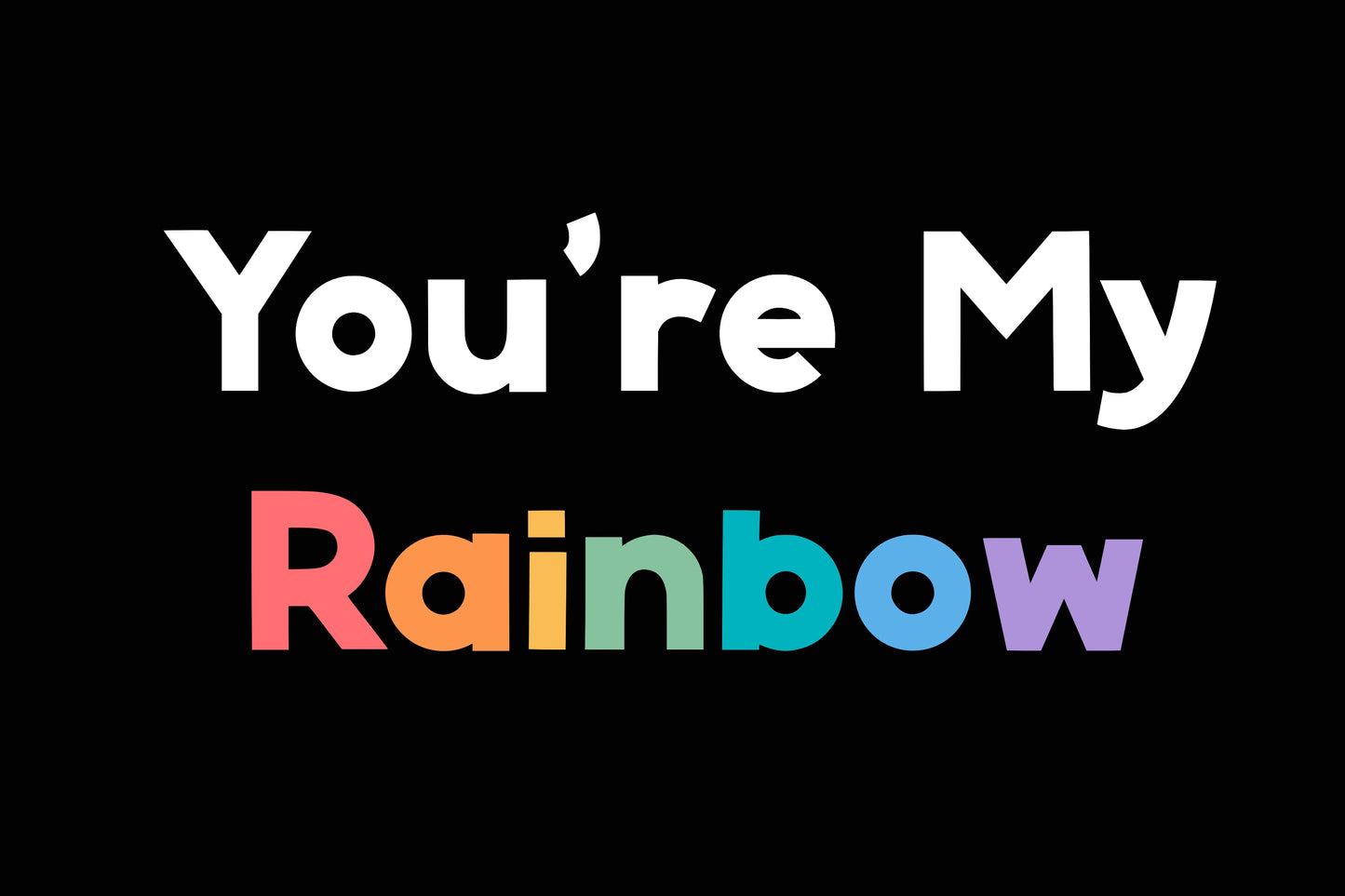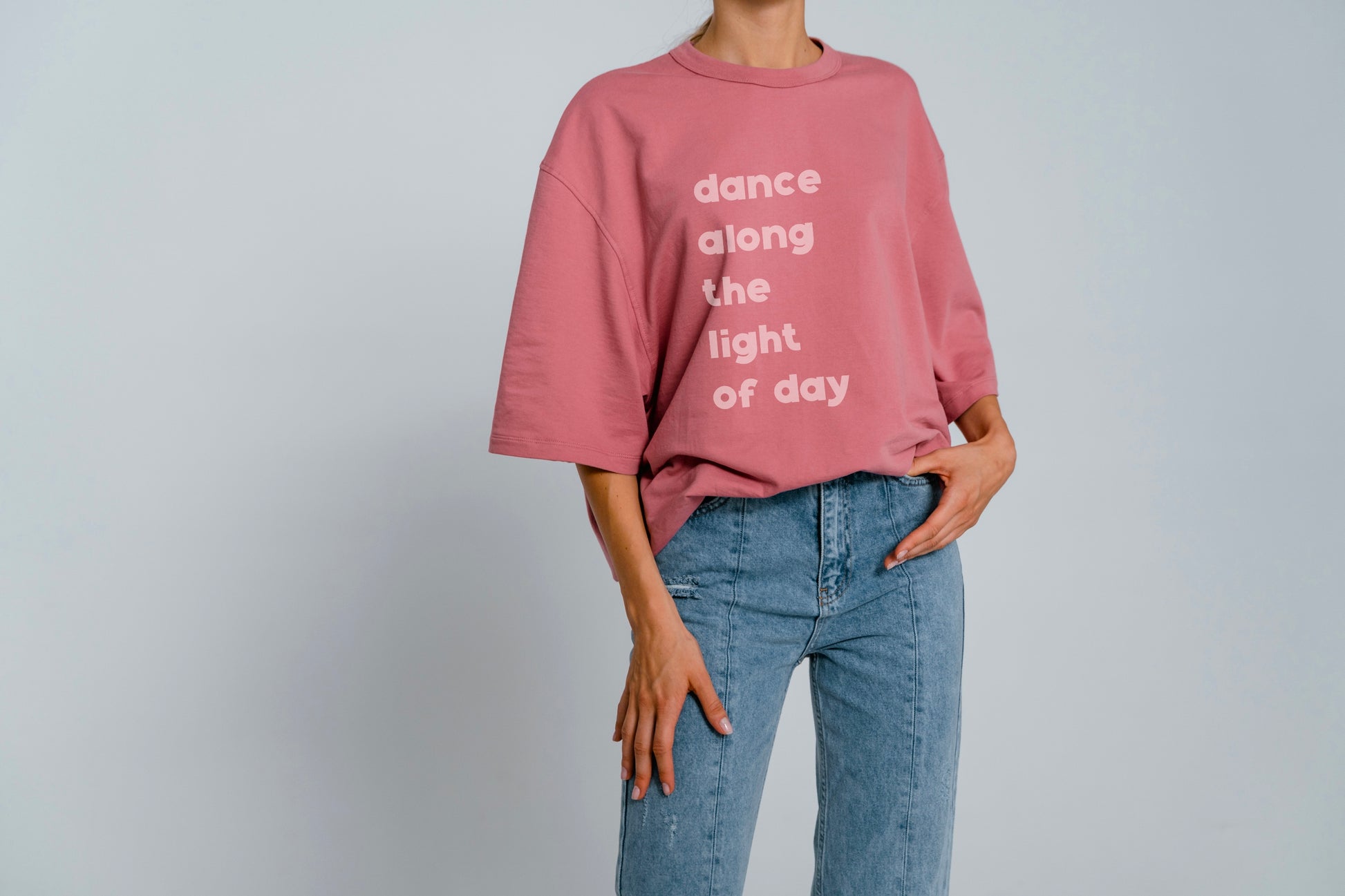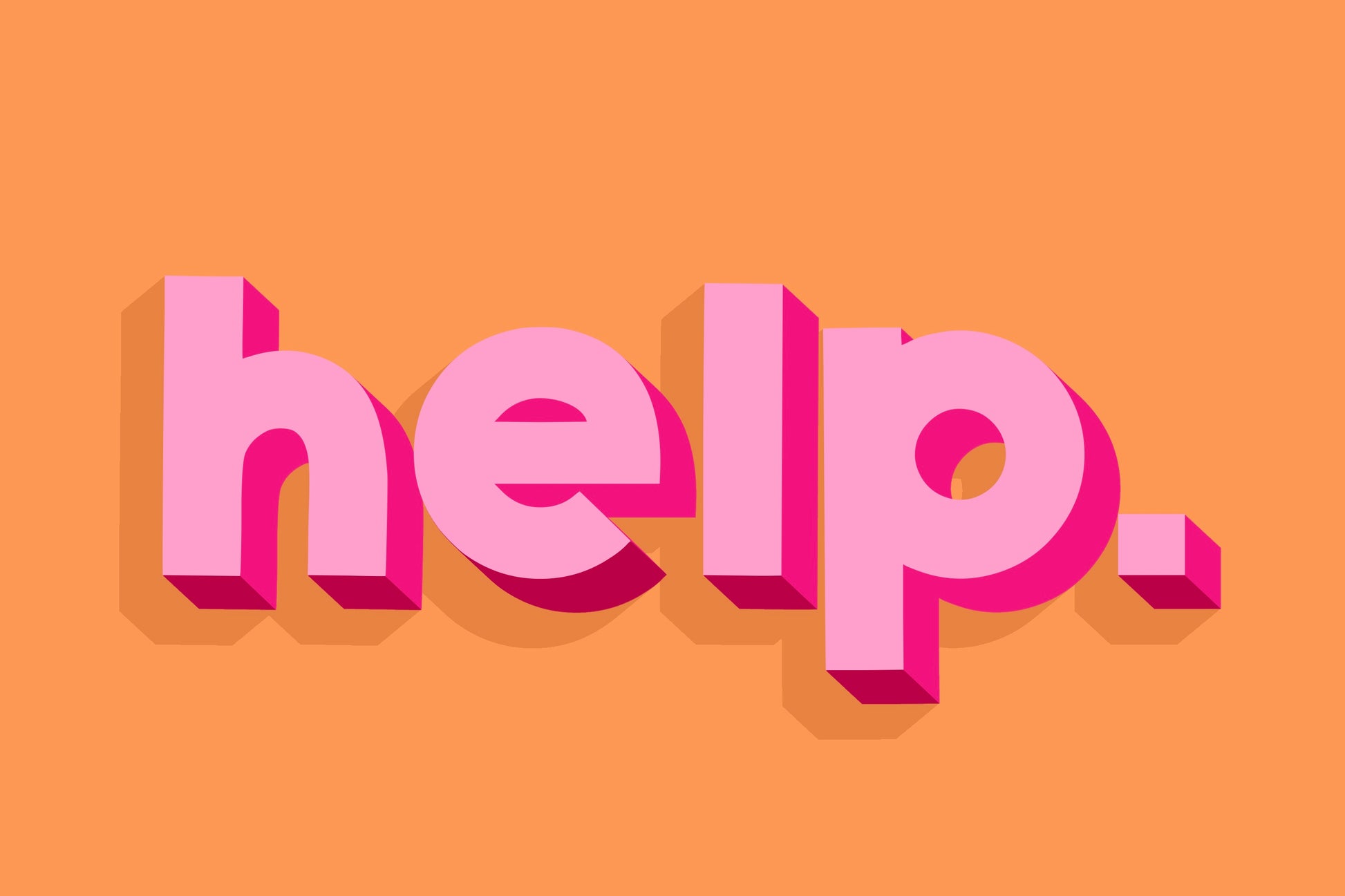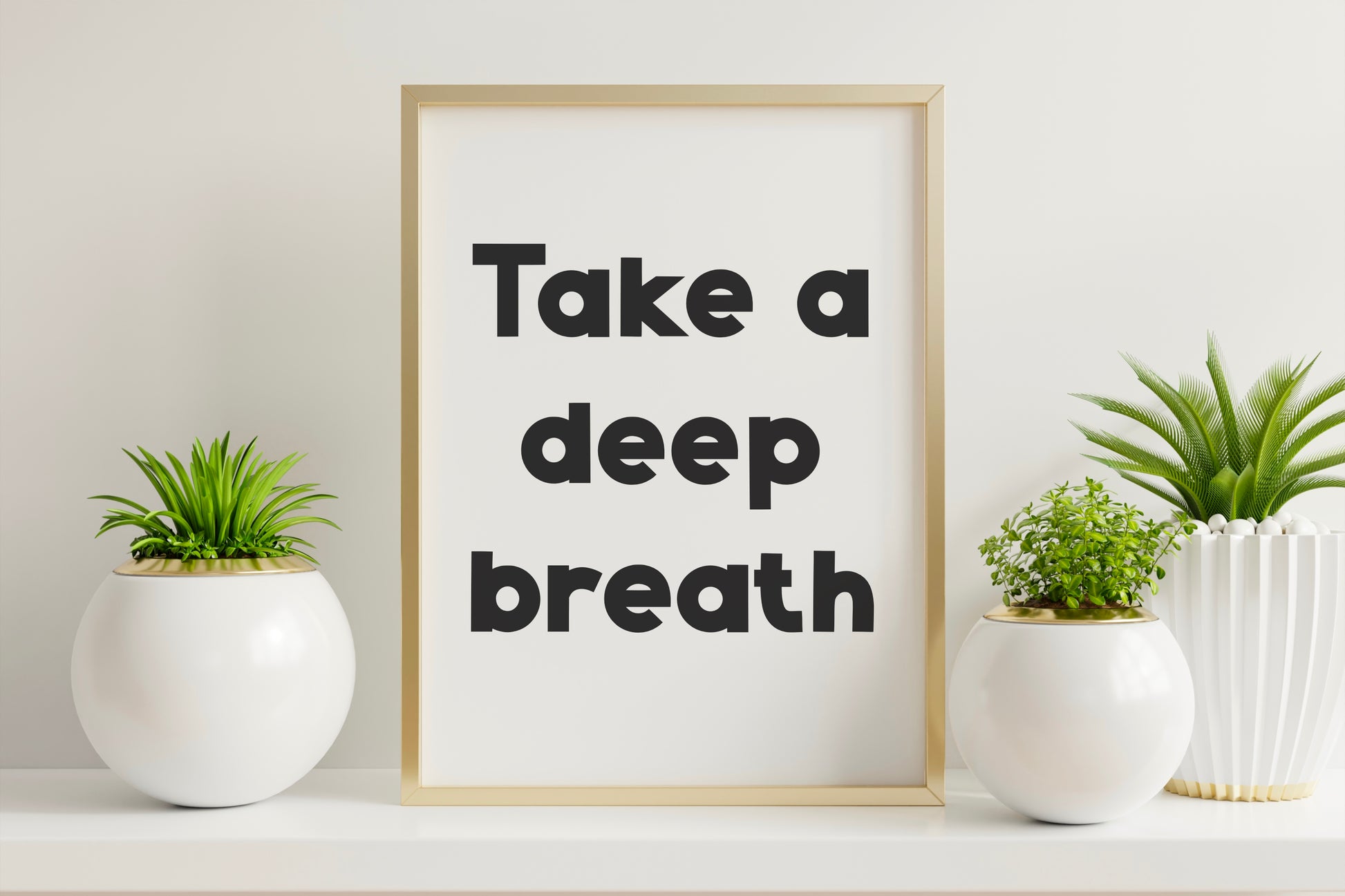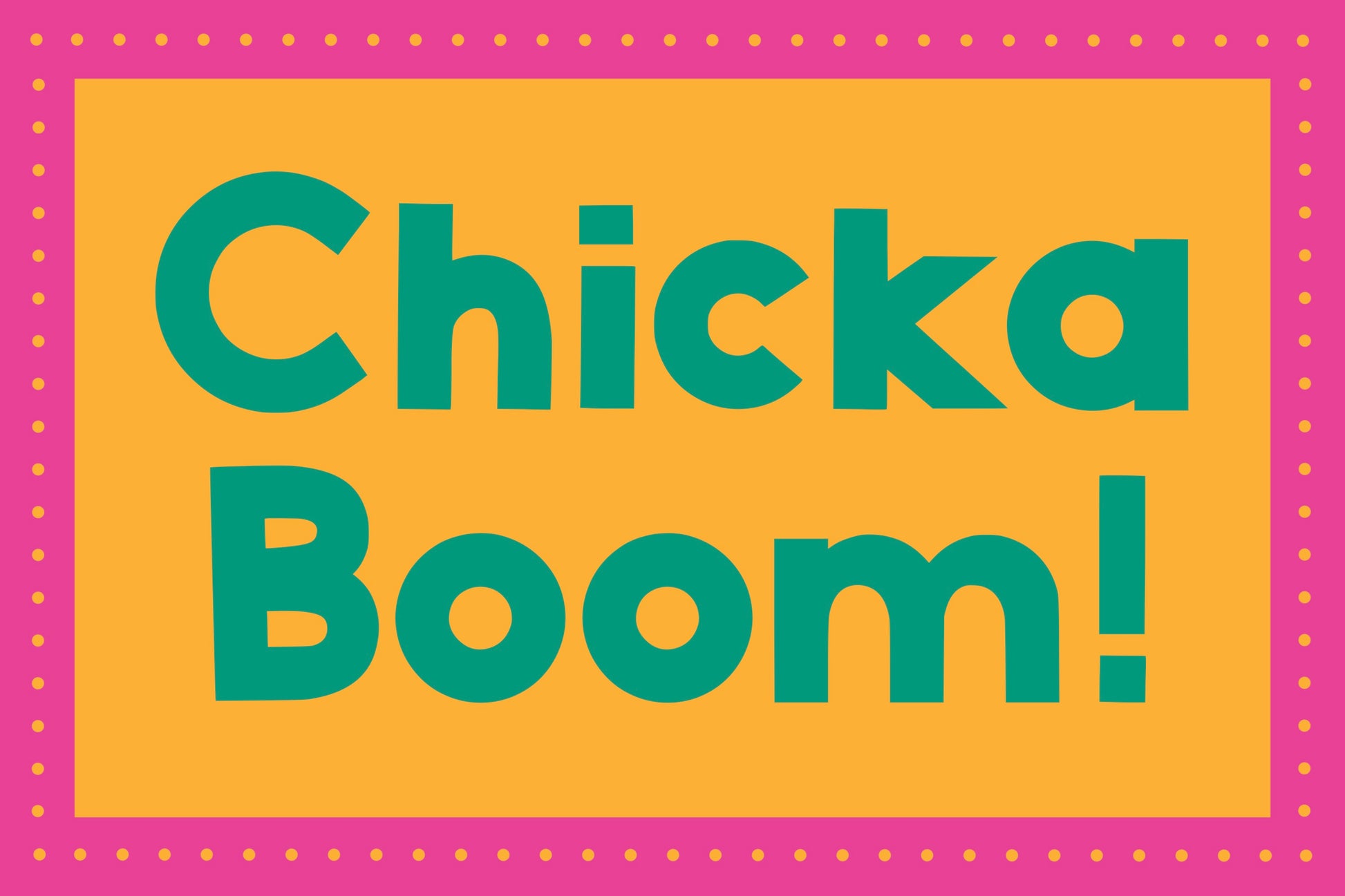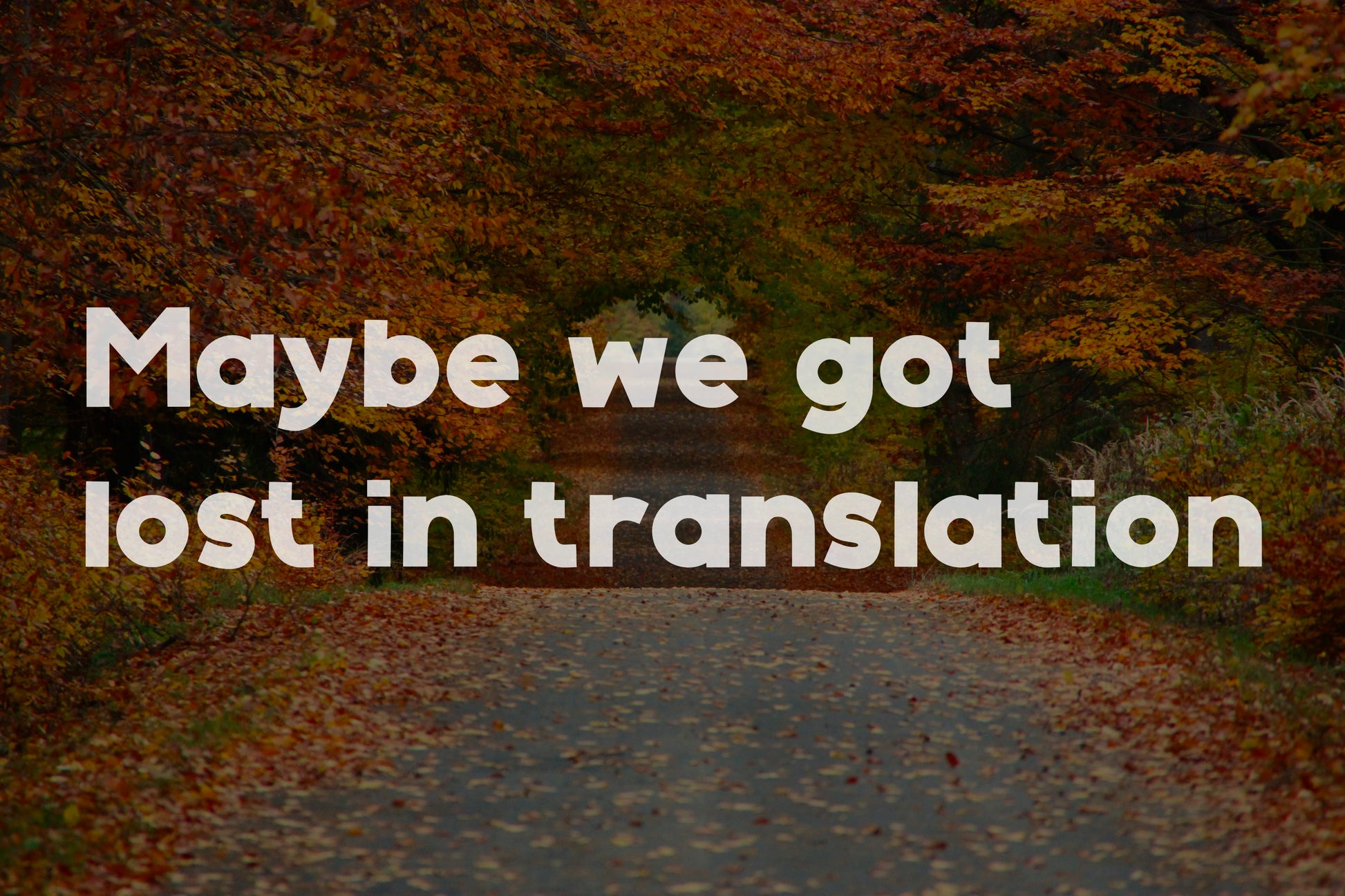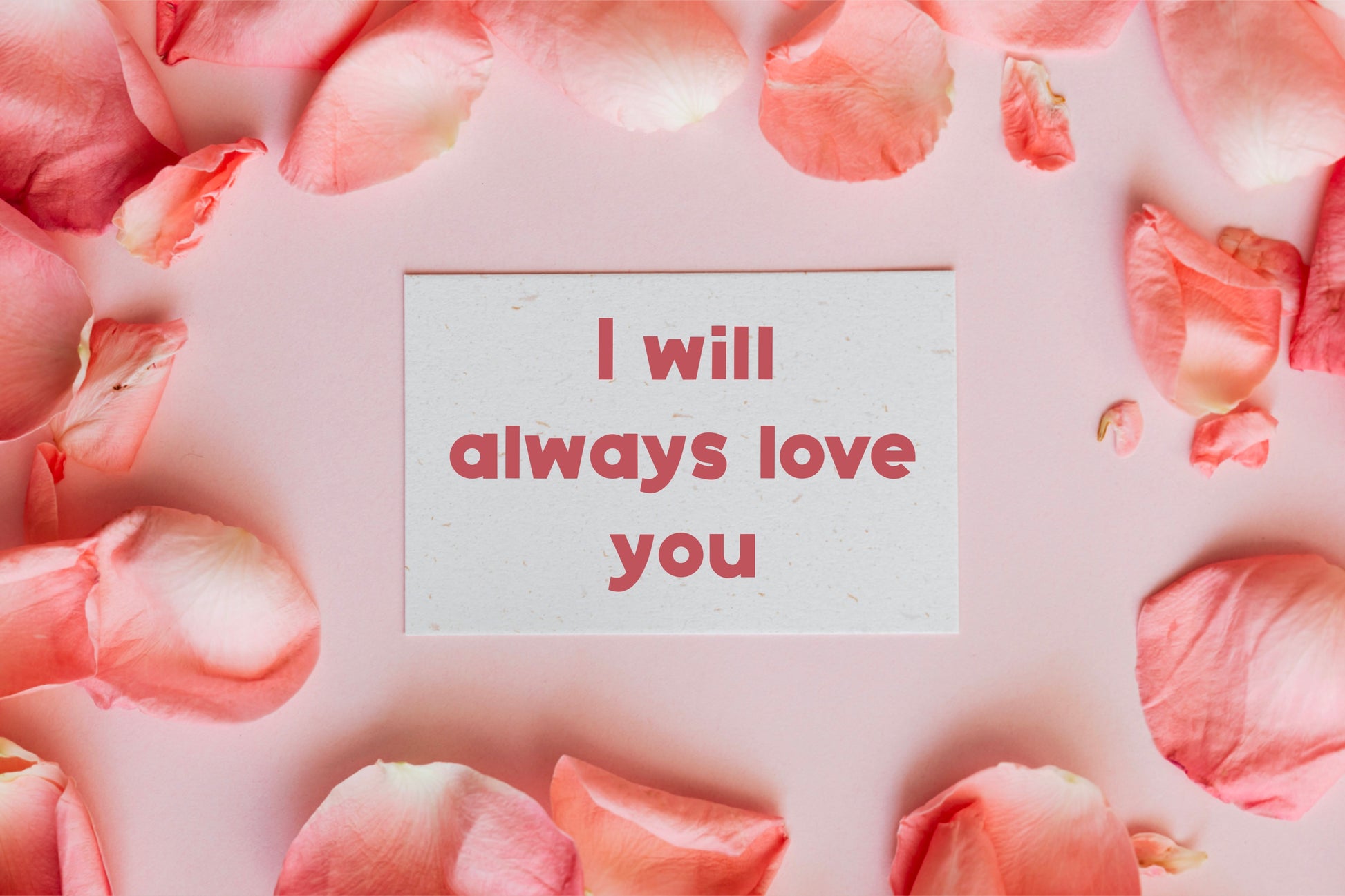
Jupiter Rain Handwritten Font
Introducing the Jupiter Rain handwritten/hand drawn font. This bold slightly geometric font will add a fun, cheerful, handmade flare to your design! Perfect for posters, Instagram quotes, stickers, 3D type designs, magazines, t-shirts, and much more!